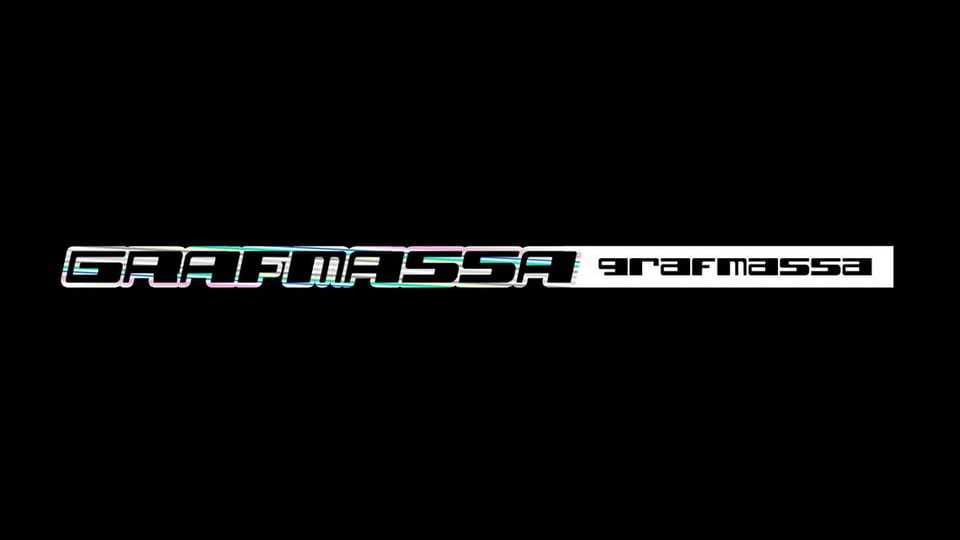
Download Grafmassa font, a display typeface based on trunk ornaments (nameplates) for Lada 110 (VAZ 2110) and its modifications.
Designer: Vladislav Borisov